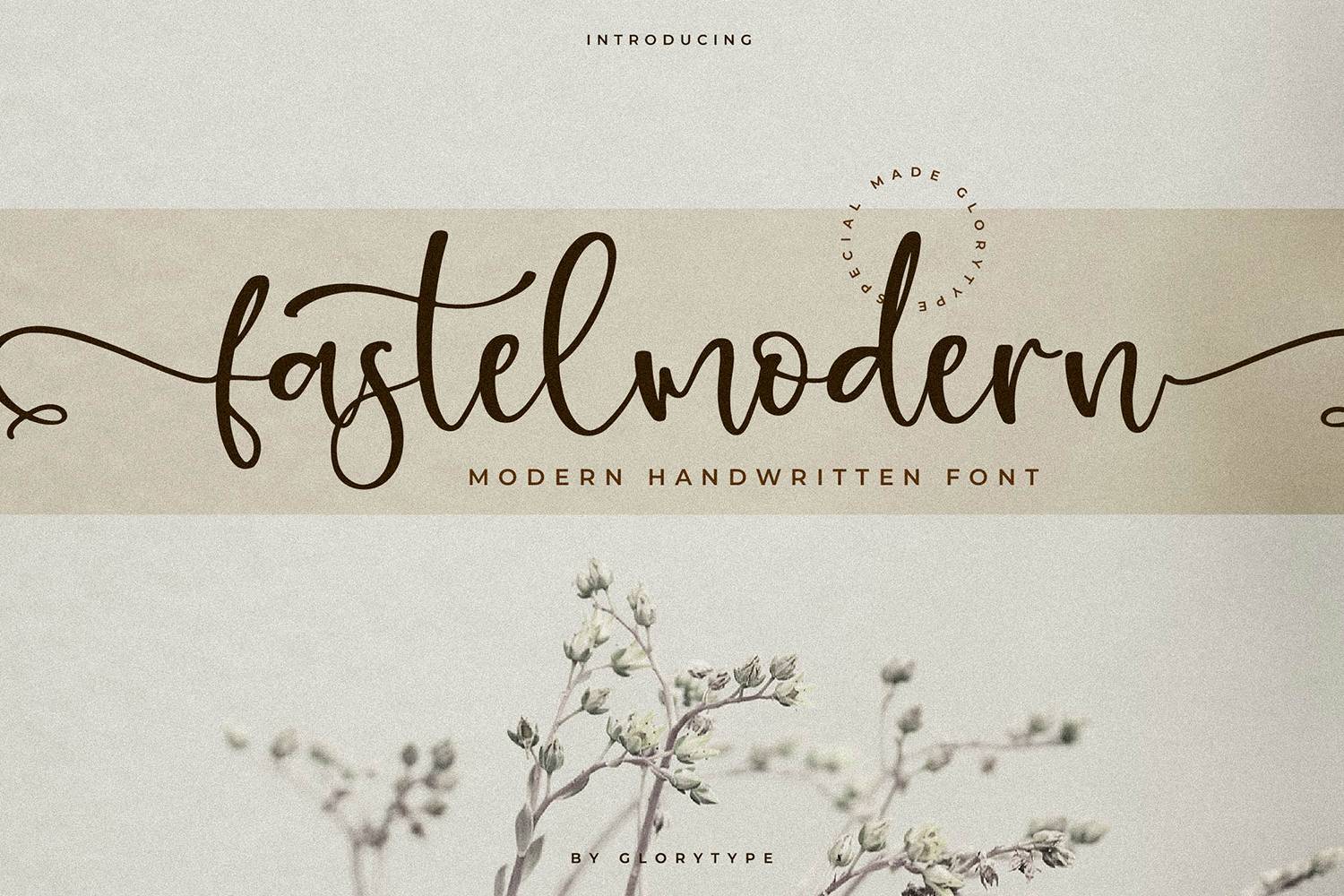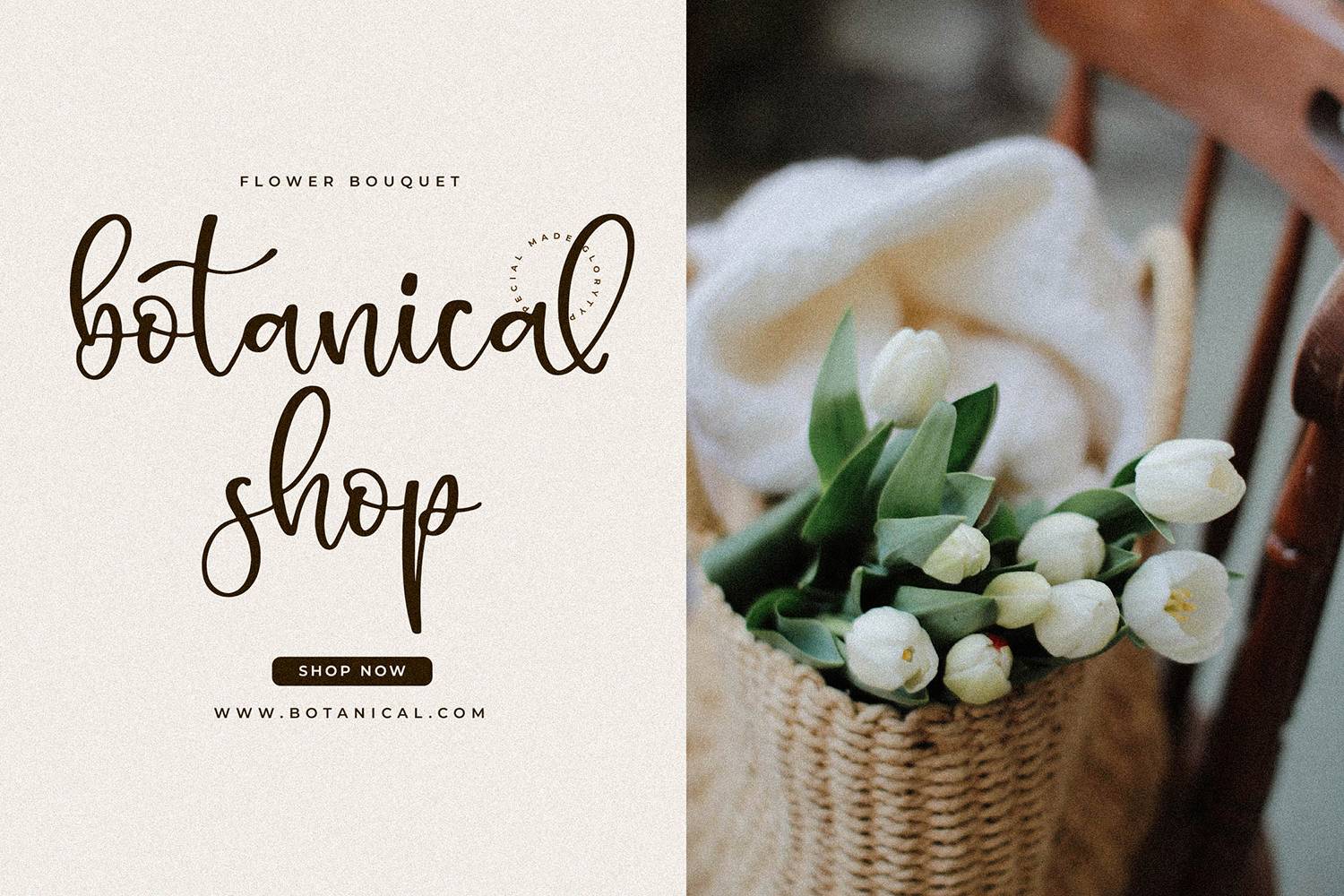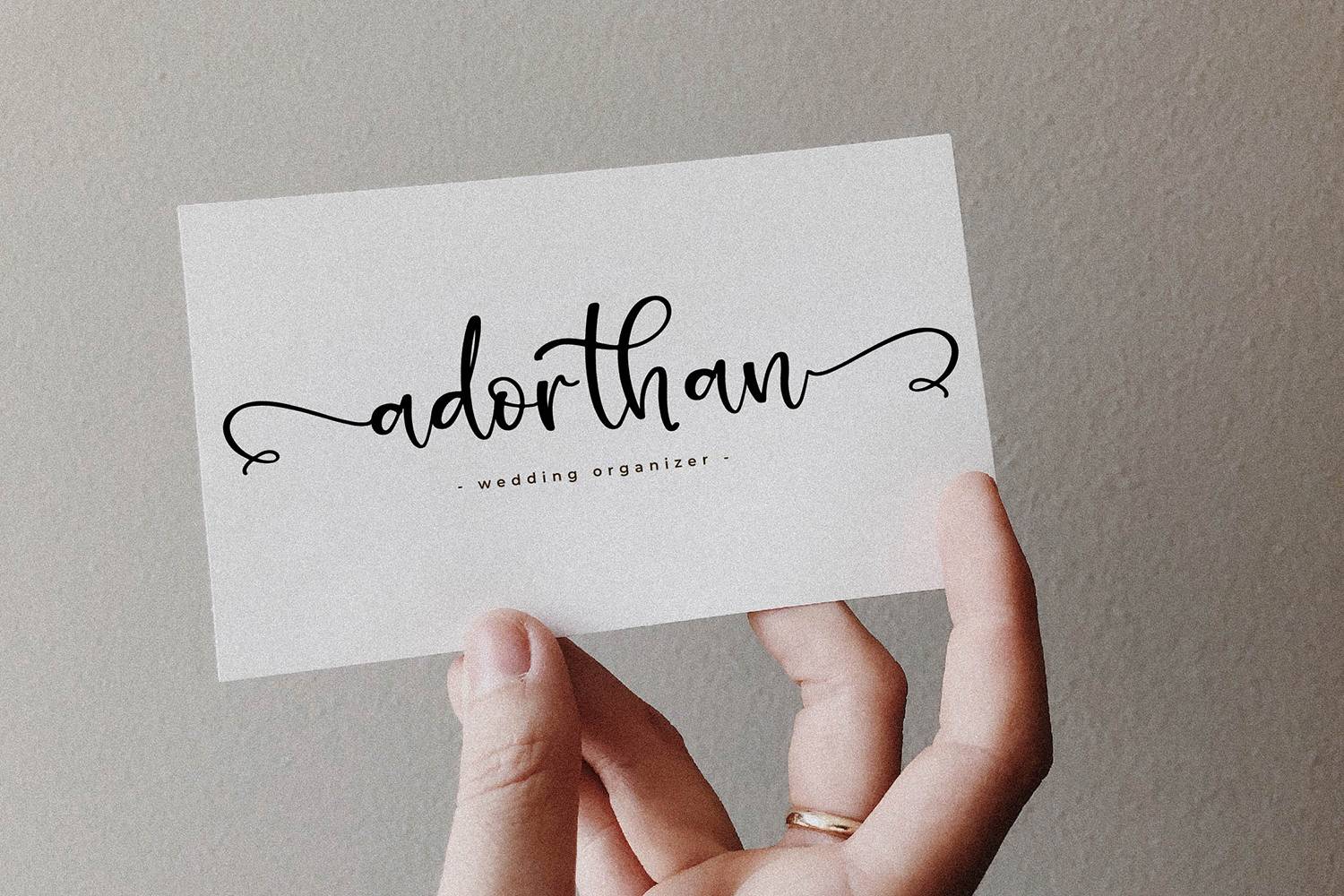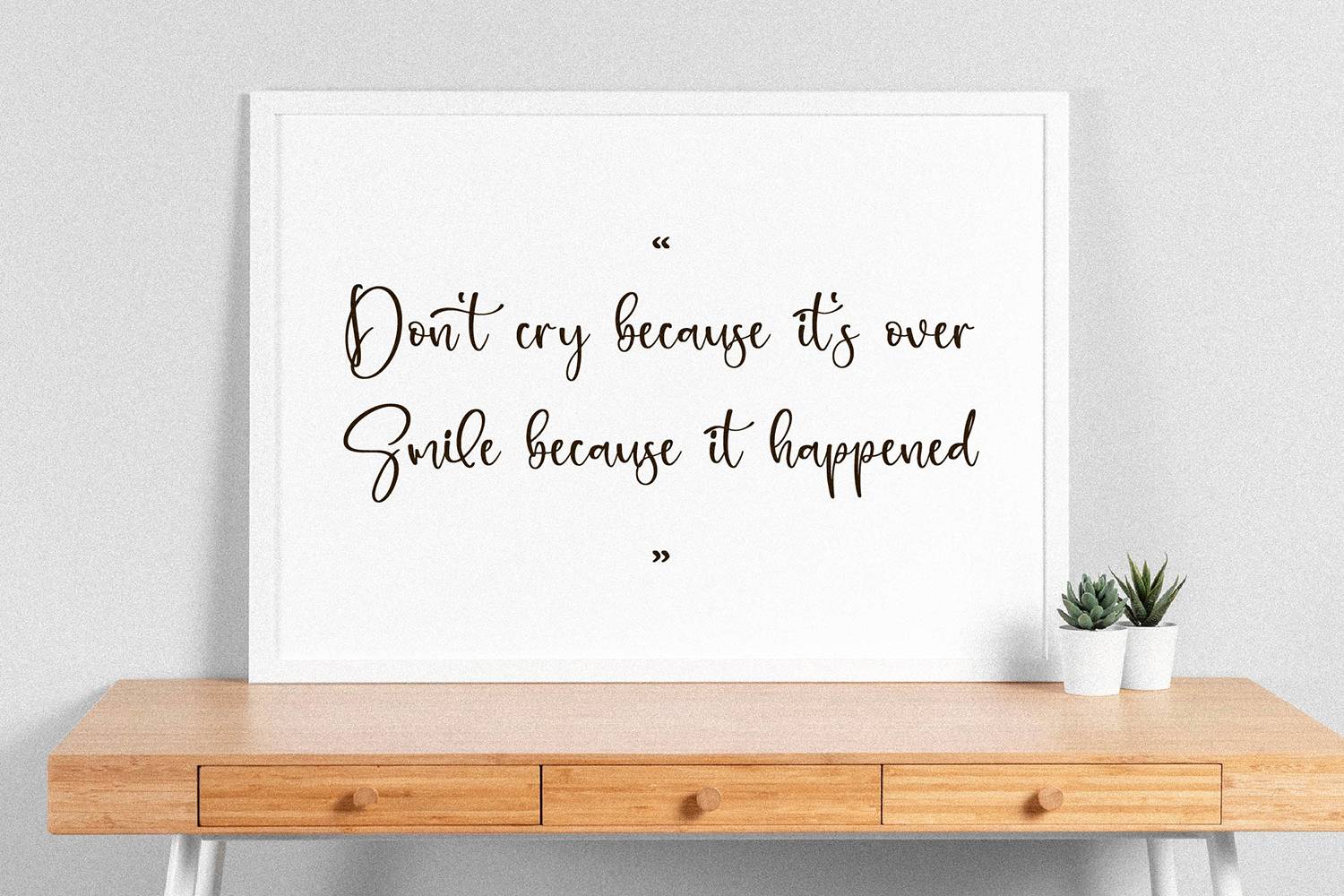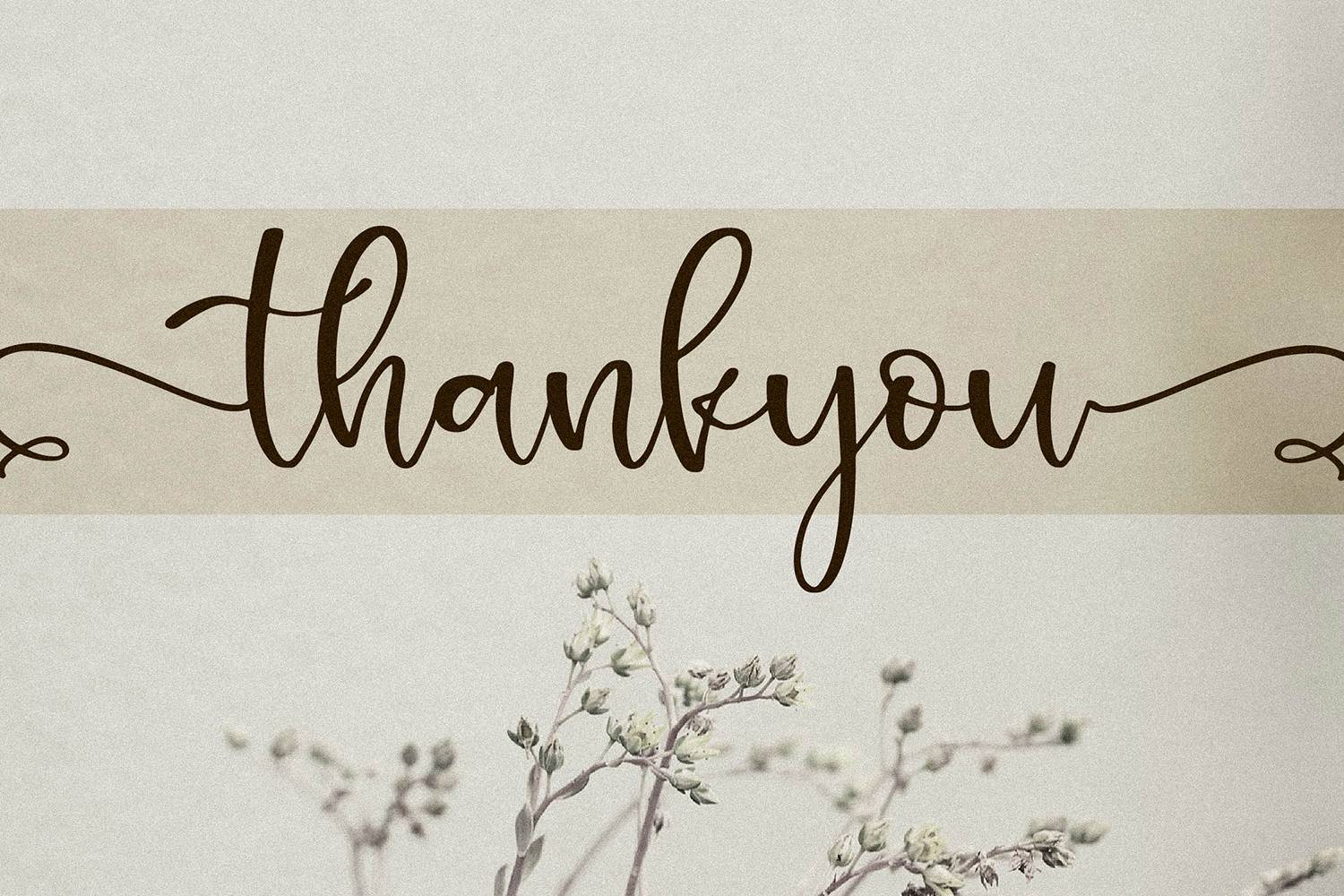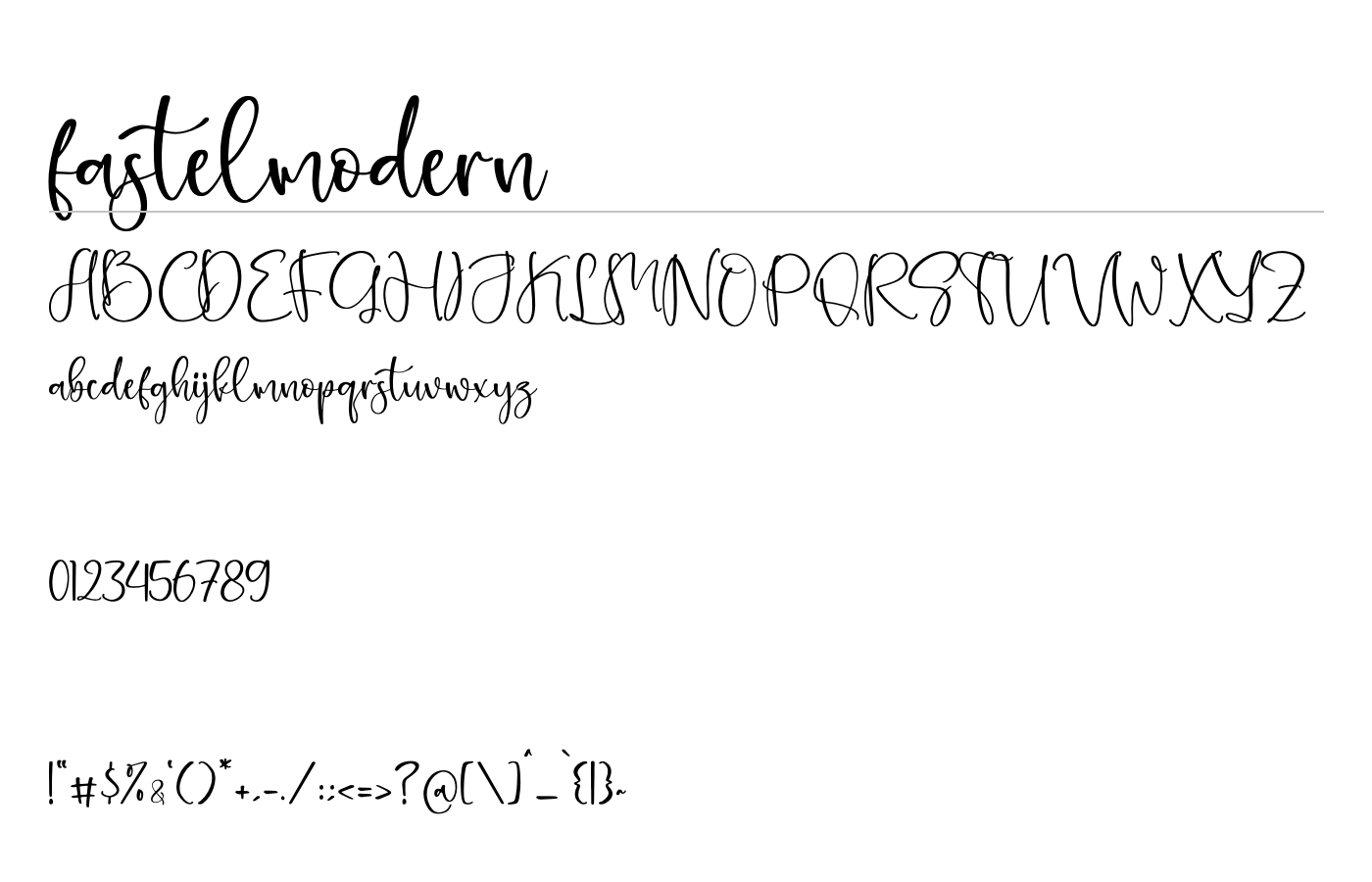
Fastelmodern is a delicate, modern script font featuring elegant, flowing letterforms with a hand-drawn feel. Its thin strokes and whimsical curves create a light, artistic look, perfect for adding a personal, stylish touch to invitations, branding, or creative projects that aim for a playful yet sophisticated vibe. This font works well in designs that require a graceful, handwritten charm.
Fastelmodern Font
About Fastelmodern Font